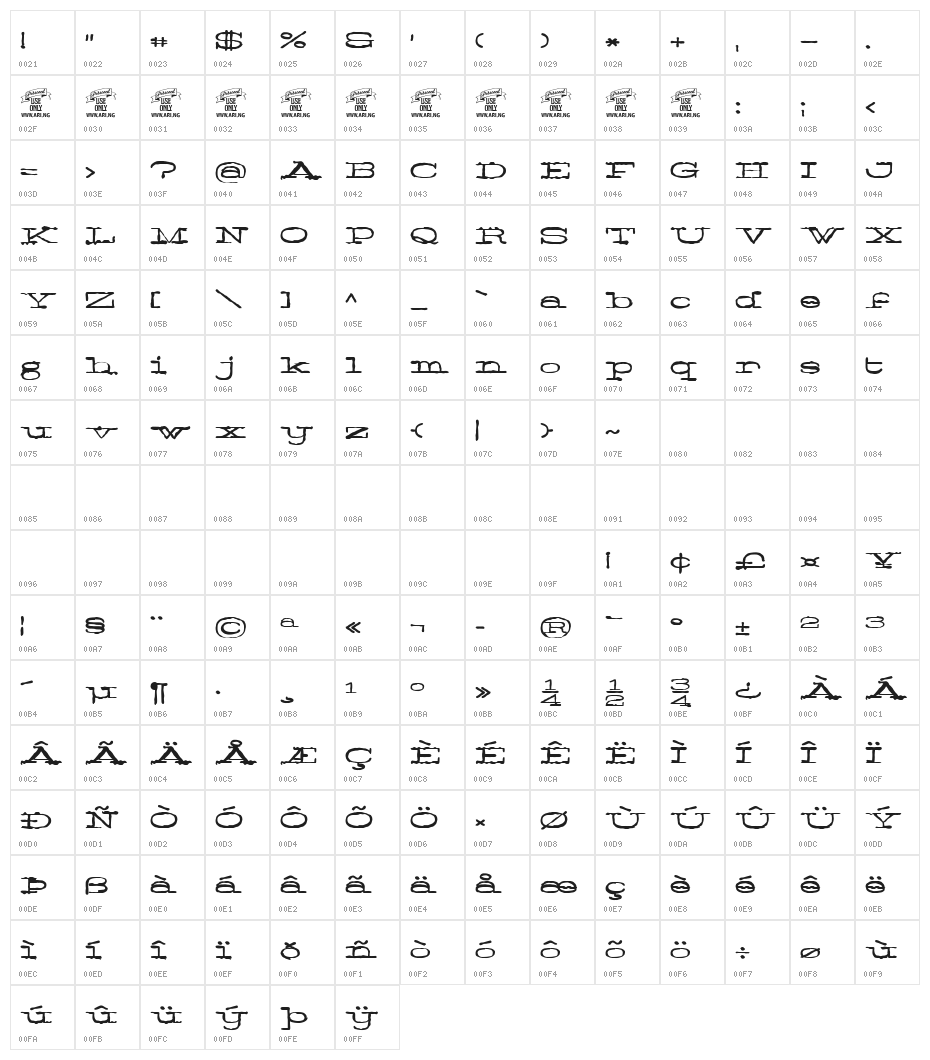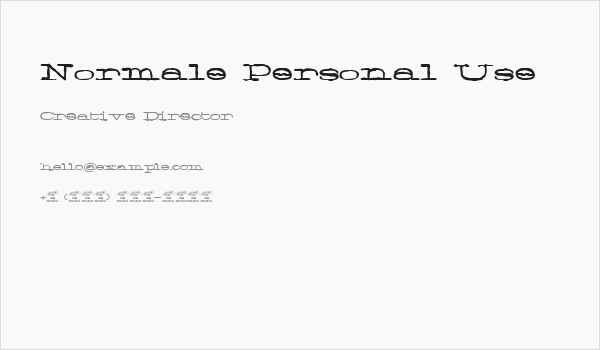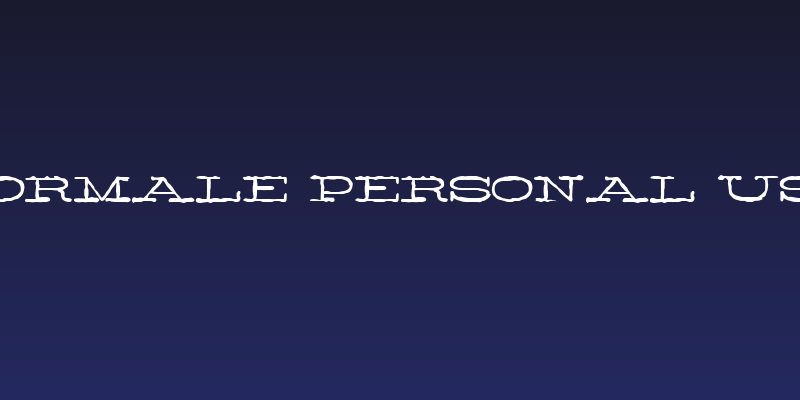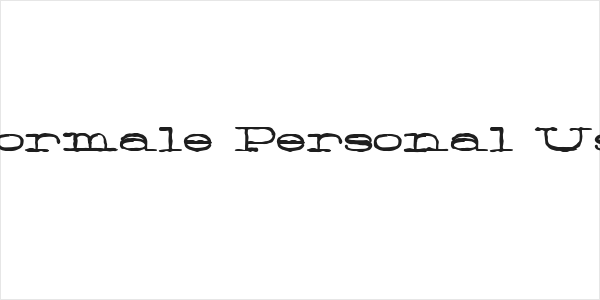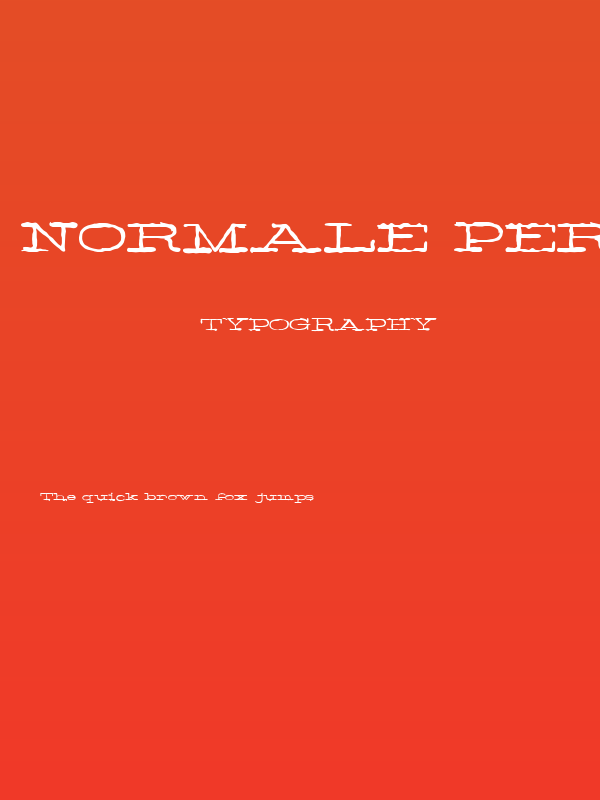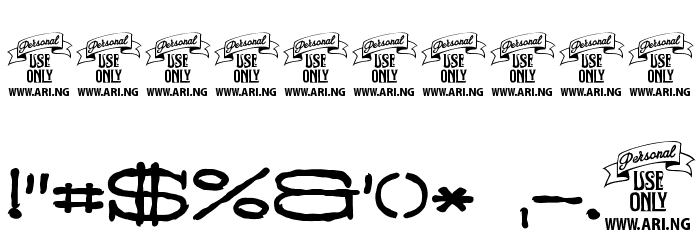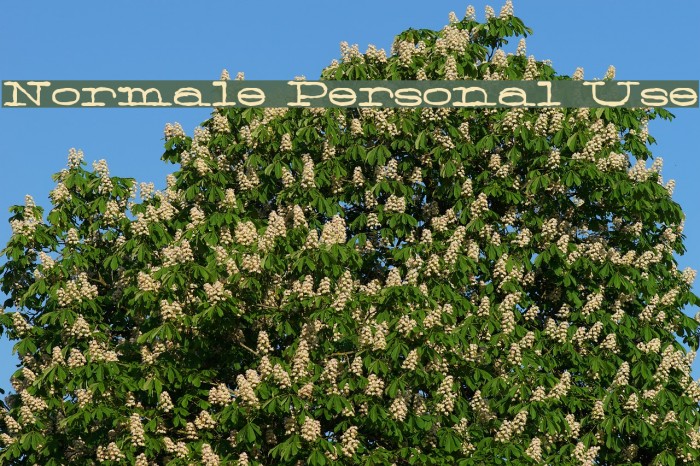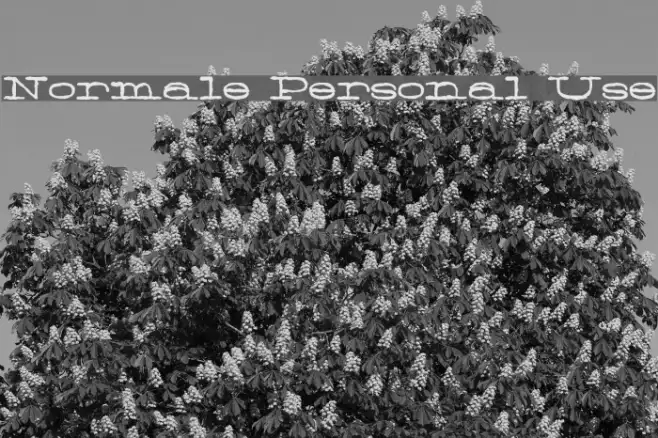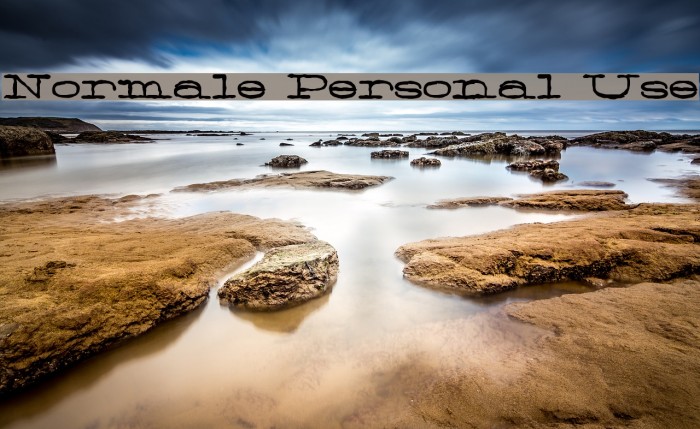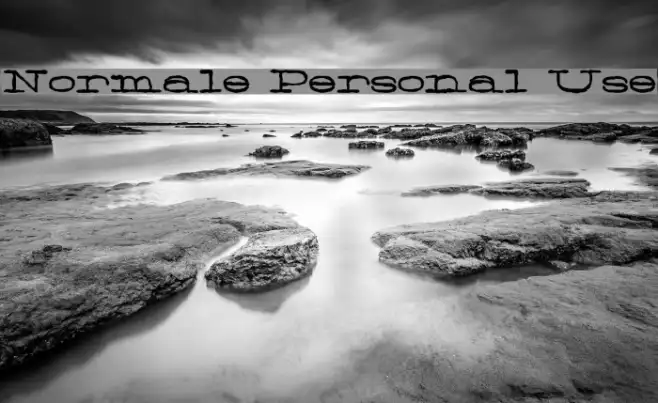
Normale Personal Use Font
Normale Personal Use Description
This font exhibits a typewriter-style aesthetic with a vintage and slightly distressed appearance. The characters have a monospaced feel, with consistent width across all letters, giving it a uniform look. The uppercase letters are bold and prominent, while the lowercase letters maintain the same thickness, creating a cohesive visual flow. The special characters and numbers follow the same design principles, ensuring consistency throughout. The font's rough edges and irregularities add to its charm, making it suitable for projects that require a retro or industrial vibe.
| Proposed Projects | Ideal for retro-themed designs, vintage posters, typewriter-inspired projects, and industrial branding. |